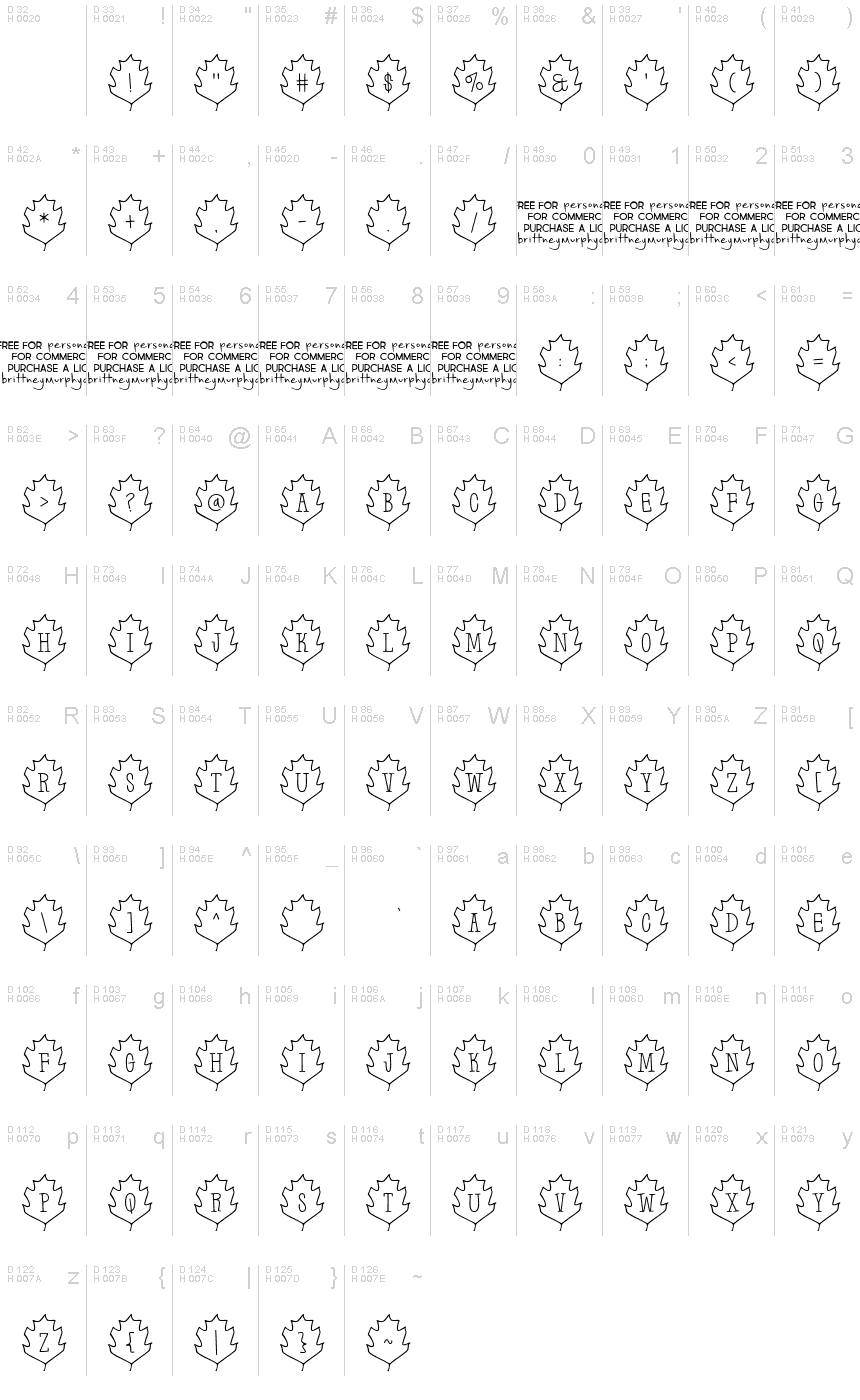
Leaf Letters Outline Demo
Leaf Letters Outline is a decorative, light-weight display font from the Leaf Letters family designed by Brittney Murphy Design. This unique font features maple leafs with embedded letters, creating an eye-catching and whimsical design. With its delicate strokes and intricate details, Leaf Letters Outline is perfect for projects that require a touch of playfulness and elegance.
Whether you're working on invitations, logos, or creative branding materials, this font will add a charming and distinctive element to your designs.
The Leaf Letters font is a cute typeface made up of leaves! Great for fall classroom decor or autumn designs.
Use the underscore _ for a blank leaf!